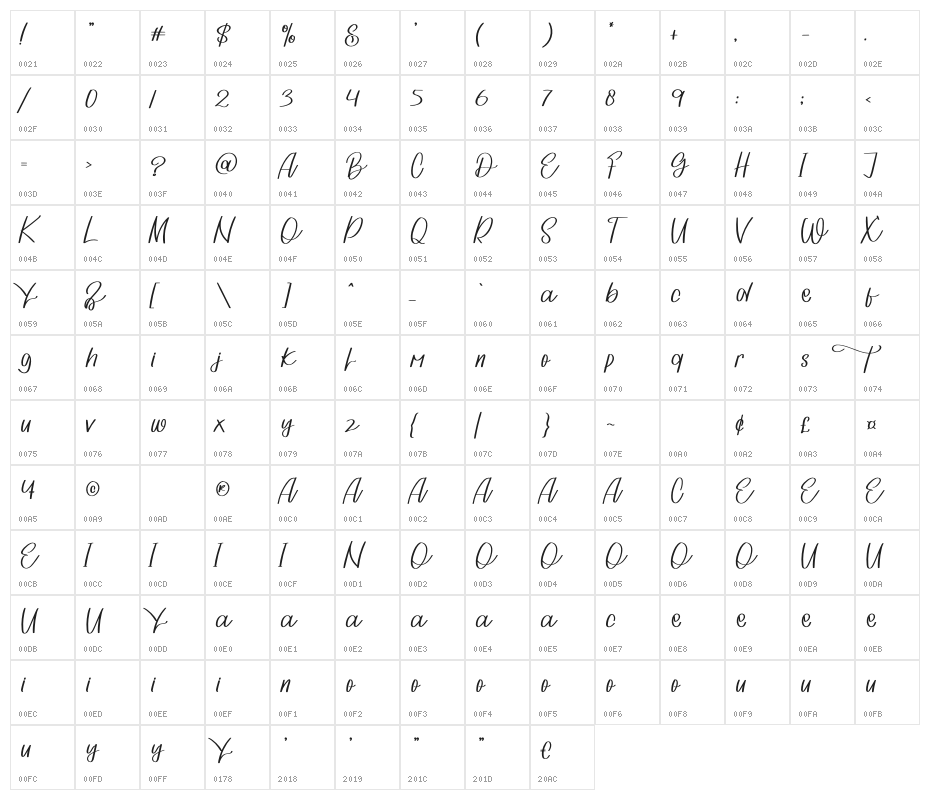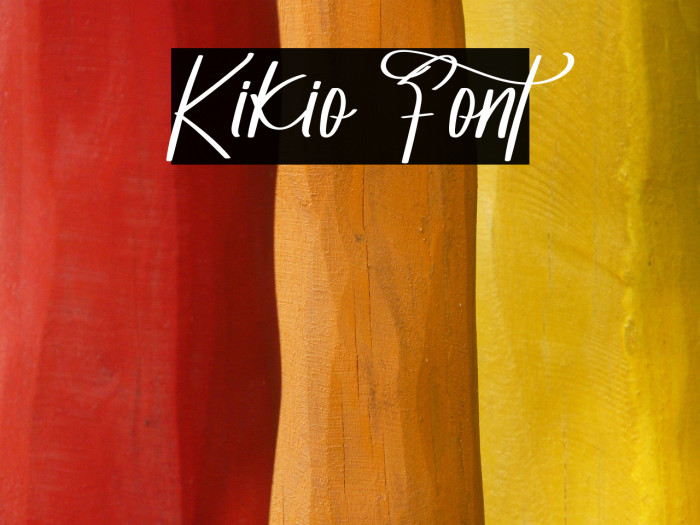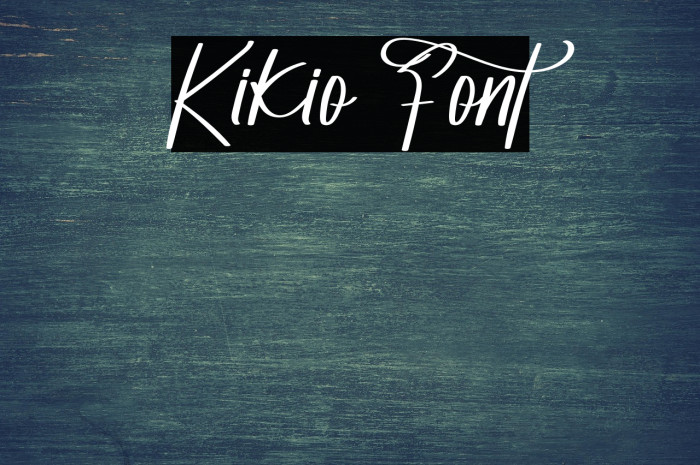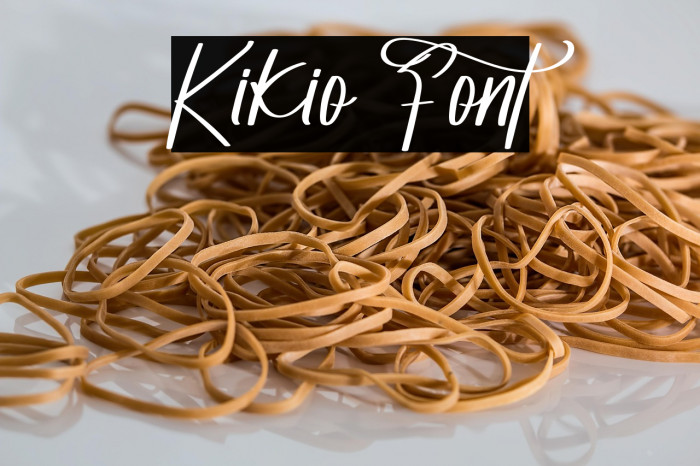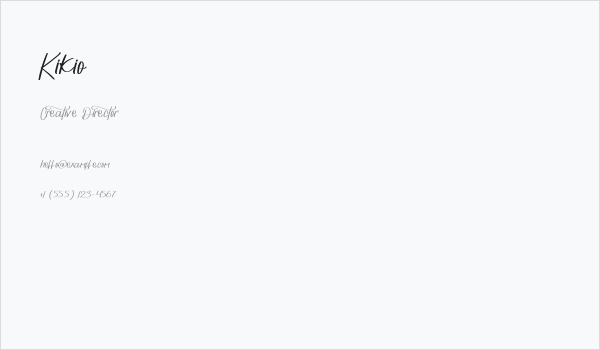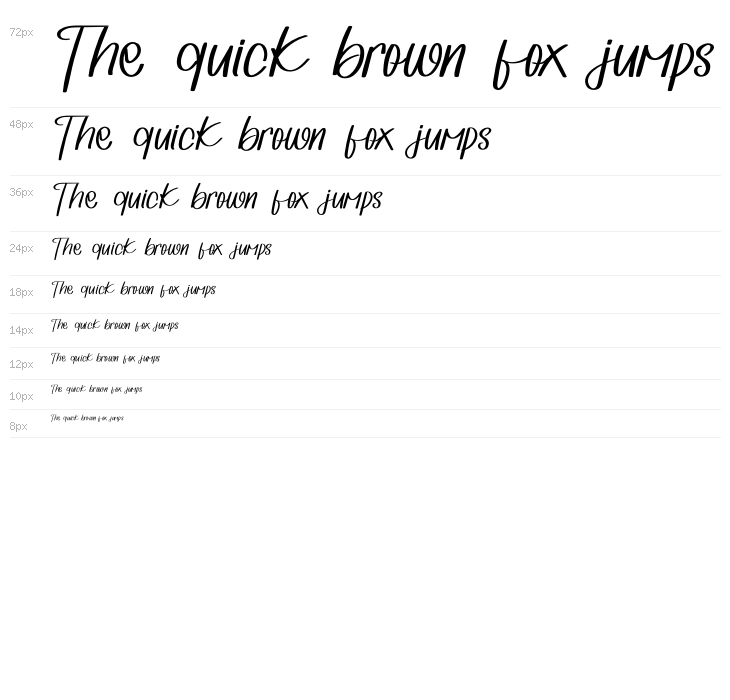
Kikio Font
Kikio Description
A flowing, elegant script font with a handwritten style, featuring smooth curves and varying stroke widths.
| Proposed Projects | Wedding invitations, greeting cards, branding. |